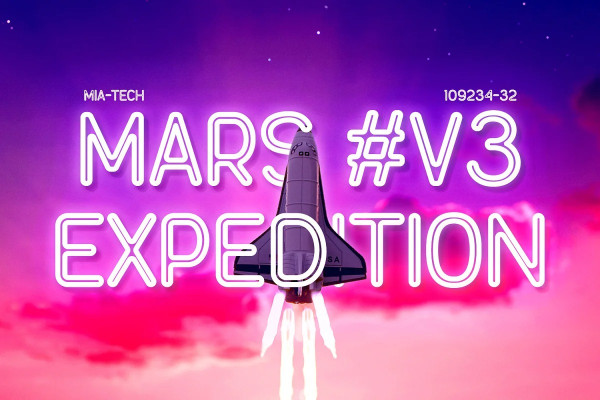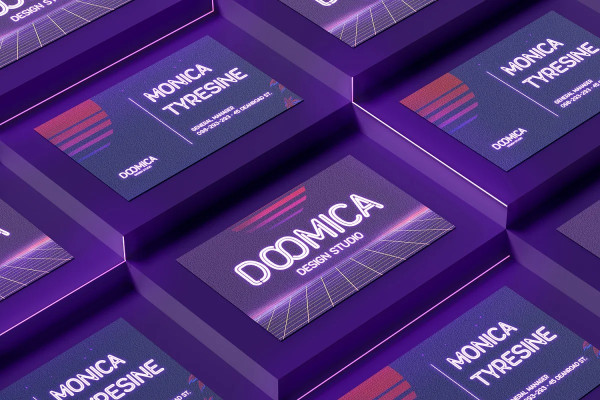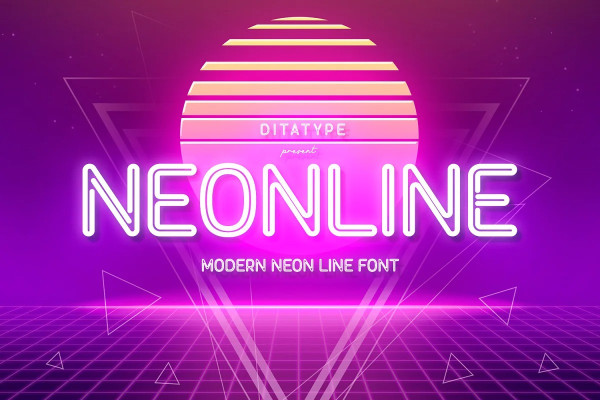
Neonline Font
Neonline Font is a captivating display font that combines rounded letterforms with a subtle neon-inspired style. With elegant capital letters and a unique design, this typeface brings a sophisticated and modern touch to your projects. Its distinguishing feature lies in its rounded shape, which exudes a soft and approachable feeling. Each handwriting is meticulously polished with flexible curves, creating a harmonious and pleasant aesthetic. Round shapes give the font a friendly and inviting look, while the subtle neon style adds a bit of excitement and vibrancy. It infuses a sense of charm and appeal into each character. The font captures the essence of neon signs, creating a subtle glow that evokes a contemporary atmosphere. The neon style adds a modern touch and visual interest without overwhelming the design. Its uppercase forms are polished and subtle, attracting attention with its rounded shape. The moderate weight of the letters strikes a balance between impact and legibility. Enjoy the different features available in this font.
Neonline perfect for headlines, branding materials, titles, and designs that call for a touch of elegance with a hint of neon inspiration. Whether you’re creating posters, logos, packaging, or anything in between, this font will elevate your projects with its unique charm. It particularly shines in applications related to fashion, beauty, technology, and modern lifestyle themes. Find out more ways to use this font by taking a look at the font preview.